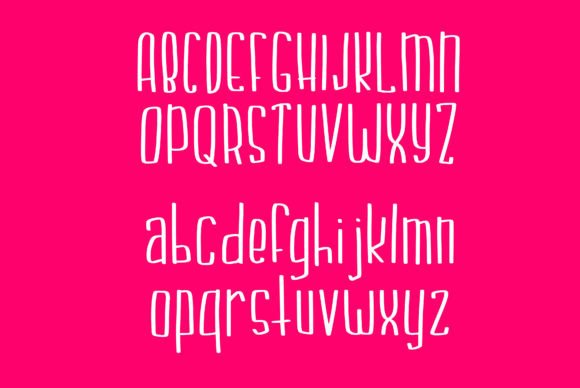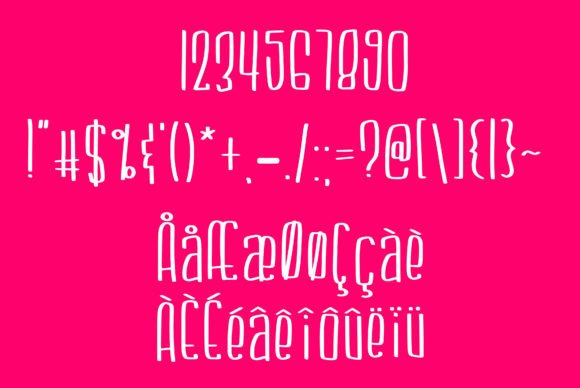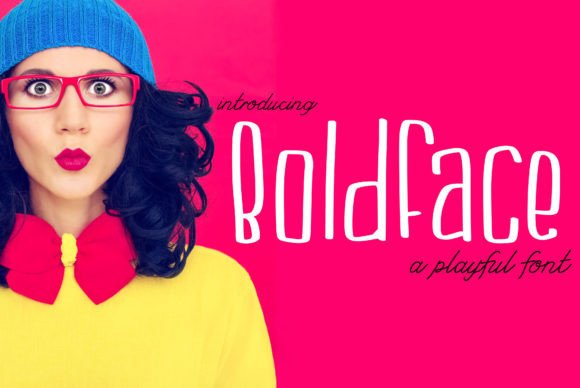
Meet Boldface: The Quirky and Playful Font That’s Making a Statement
In the world of typography, fonts can make or break a design. With so many options available, it can be overwhelming to choose the perfect one that captures the essence of your project. But, if you’re looking for a font that’s bold, colorful, and playful, look no further than Boldface. This quirky font is perfect for designers and crafters who want to add a touch of whimsy and personality to their work.
The Characteristics of Boldface
So, what makes Boldface so unique? For starters, its tall, narrow letters make a statement without overpowering your project. This balance of fun and elegance is hard to find in fonts, but Boldface pulls it off effortlessly. The font’s design is perfect for those who want to add a pop of personality to their work without overwhelming their audience.
The Versatility of Boldface
One of the best things about Boldface is its versatility. This font can be used for a wide range of projects, from invitations and posters to social media graphics and more. Whether you’re working on a formal or informal project, Boldface is the perfect choice. Its playful and quirky nature makes it ideal for designs that require a bit of fun and personality.
Why Designers and Crafters Love Boldface
Designers and crafters love Boldface for many reasons. For one, it’s a great way to add visual interest to a project. The font’s bold and colorful design makes it perfect for headlines, titles, and other attention-grabbing elements. Additionally, Boldface is easy to read, making it a great choice for body text as well.
How to Use Boldface in Your Designs
So, how can you use Boldface in your designs? Here are a few ideas to get you started:
• Use Boldface as a headline font to grab attention and add visual interest.
• Pair Boldface with a simpler font for body text to create a striking contrast.
• Experiment with different colors and textures to add depth and personality to your design.
• Use Boldface to create eye-catching social media graphics that will stand out in a crowded feed.
The Benefits of Using Boldface
There are many benefits to using Boldface in your designs. For one, it’s a great way to add personality and whimsy to your work. The font’s playful and quirky nature makes it perfect for designers who want to stand out from the crowd. Additionally, Boldface is highly versatile, making it suitable for a wide range of projects and applications.
Tips for Getting the Most Out of Boldface
Here are a few tips for getting the most out of Boldface:
• Experiment with different font sizes and colors to find the perfect combination for your project.
• Pair Boldface with other fonts to create a unique and visually appealing design.
• Don’t be afraid to get creative and try new things – Boldface is a font that’s meant to be played with!
In conclusion, Boldface is a quirky and playful font that’s perfect for designers and crafters who want to add a touch of whimsy and personality to their work. Its tall, narrow letters make a statement without overpowering your project, offering a balance of fun and elegance. Whether you’re working on invitations, posters, or social media graphics, Boldface is the perfect choice. So why not give it a try and see how it can elevate your designs?